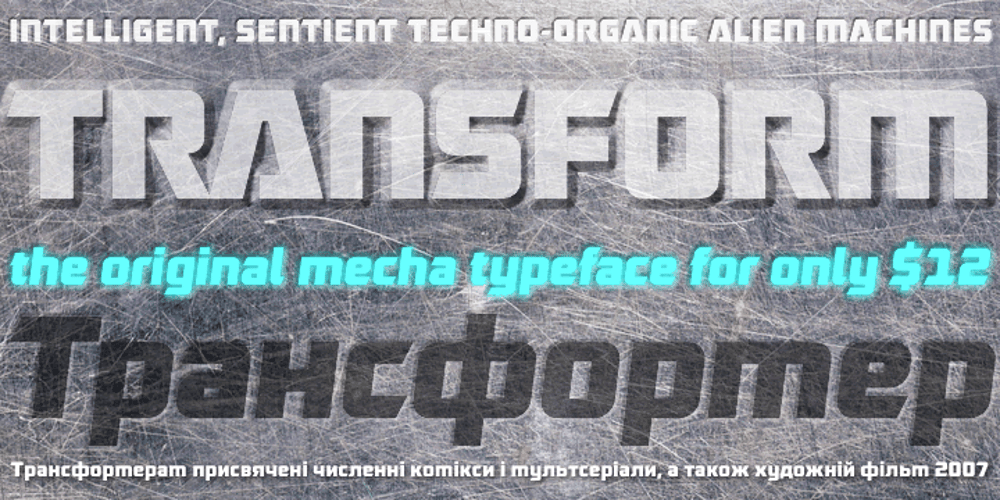
Robofan Font Family was designed by César Puertas and published by César Puertas. Robofan contains 8 styles and family package options. Robofan is a vintage Open Type font based on the logo of reconfigurable robots (toys and characters) from the mid 1980s. The typeface was conceived when looking at the author’s own collection of Transformers, he noticed many basic drawing and spacing problems, missing characters, incorrect accent shapes and a lack of proper rhythm in the typeface used in the newest toy’s packaging, mistakes that didn’t happen in the toys back in the 80s. These mistakes were so evident that the author decided to look back at the original lettering from the 80s to capture the original spirit of the Transformers. Robofan contains true small caps and has full support for Cyrillic scripts and Central European languages. The full character set consists of more than 700 glyphs. Robofan is ideal for computer & video games, merchandising and all kinds of products related to science fiction, robots, cyborgs, aliens and everything else.